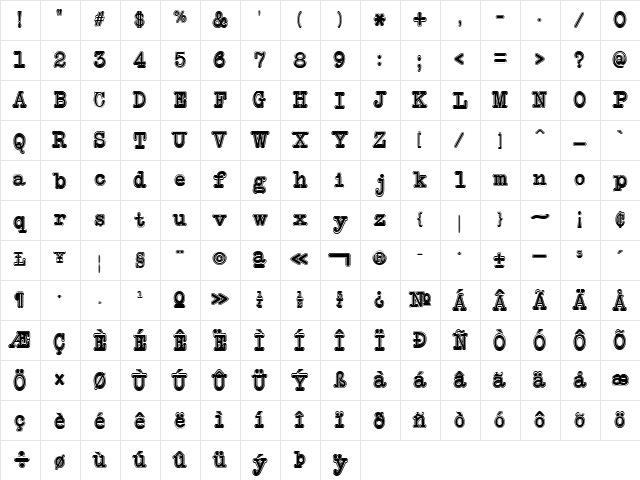
NeoBulletin College Regular
| Foundry | Iza W, IntellectaDesign |
Design Context for NeoBulletin College Typeface
NeoBulletin College brings high-energy athletic personality to the page — its confident, muscular forms are built for impact.
A natural choice for gym brands, fantasy sports, jersey lettering, and action-driven headlines.
Pro Tip: Use NeoBulletin College in all-caps headlines where its athletic energy can fully express itself. Pair with a solid, simple sans for supporting text.